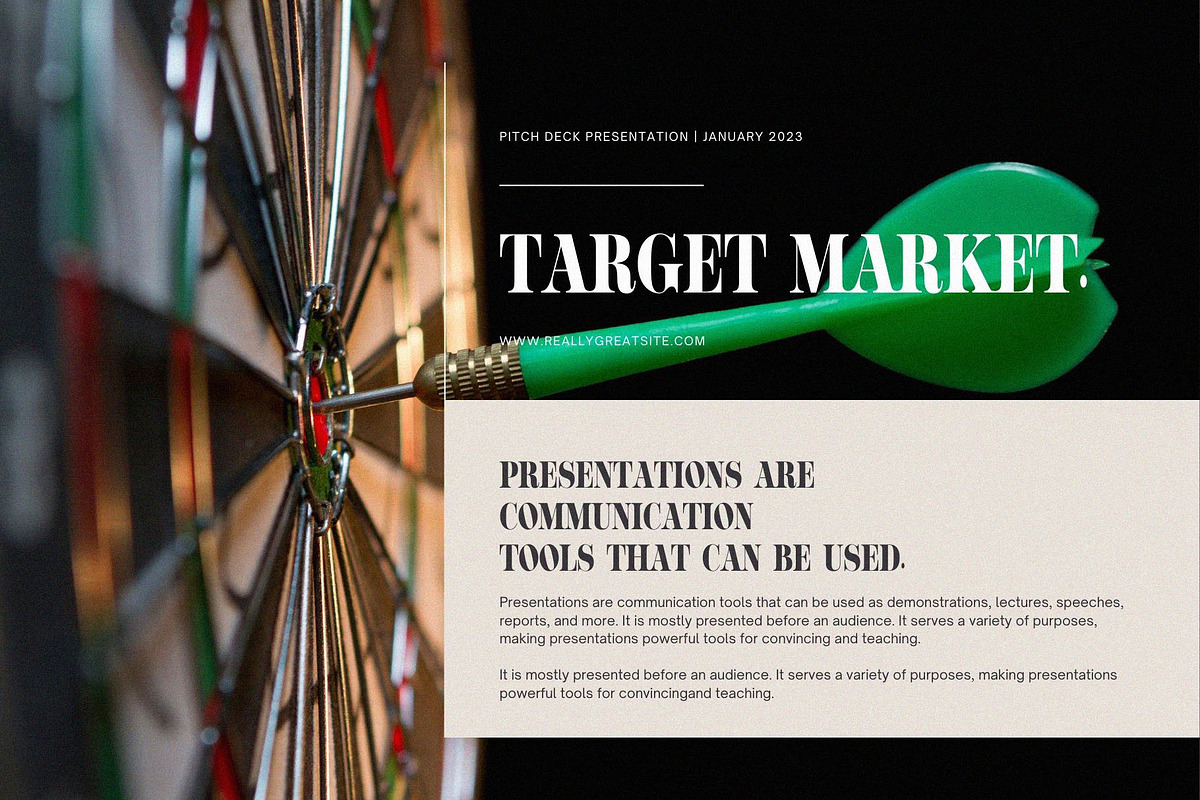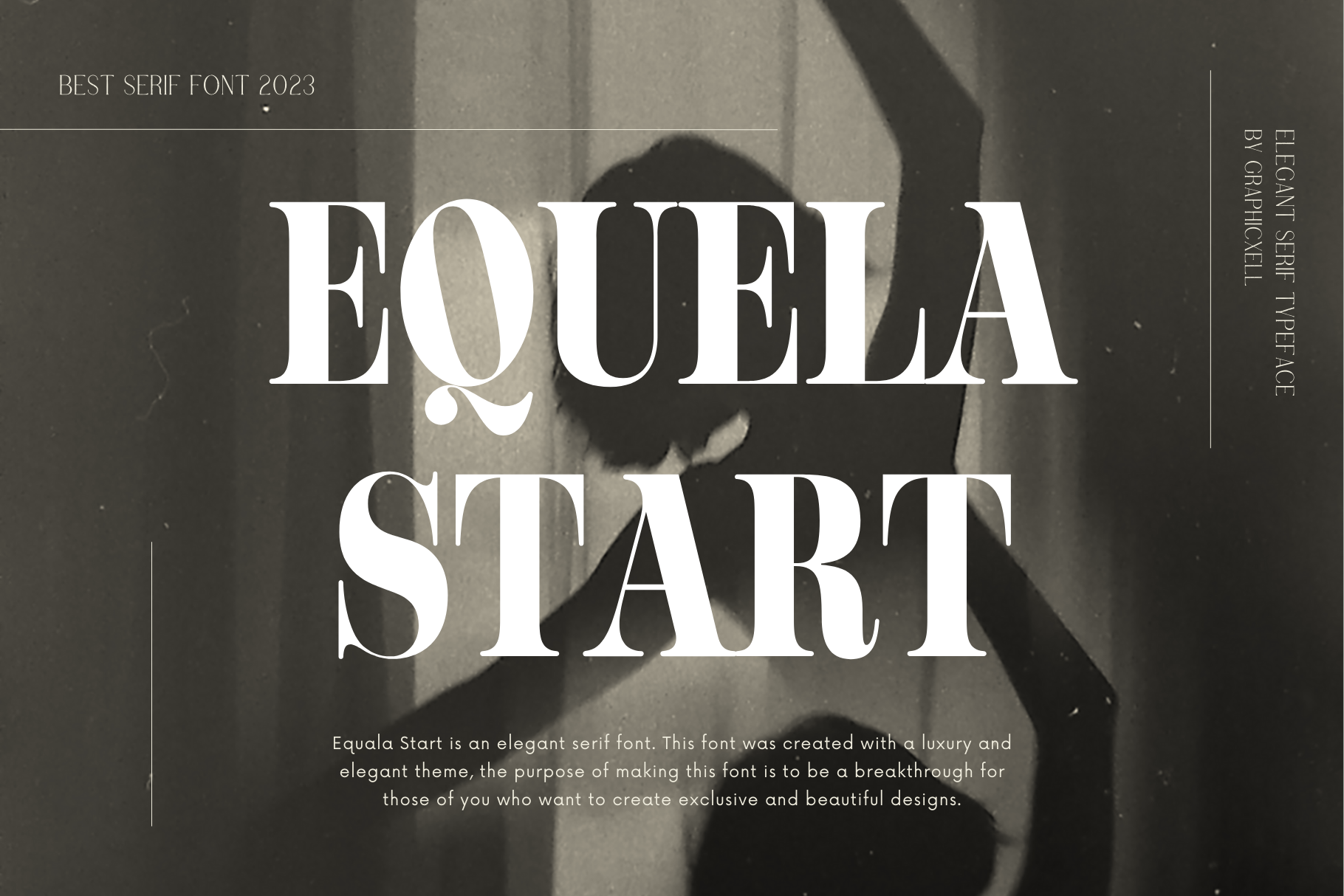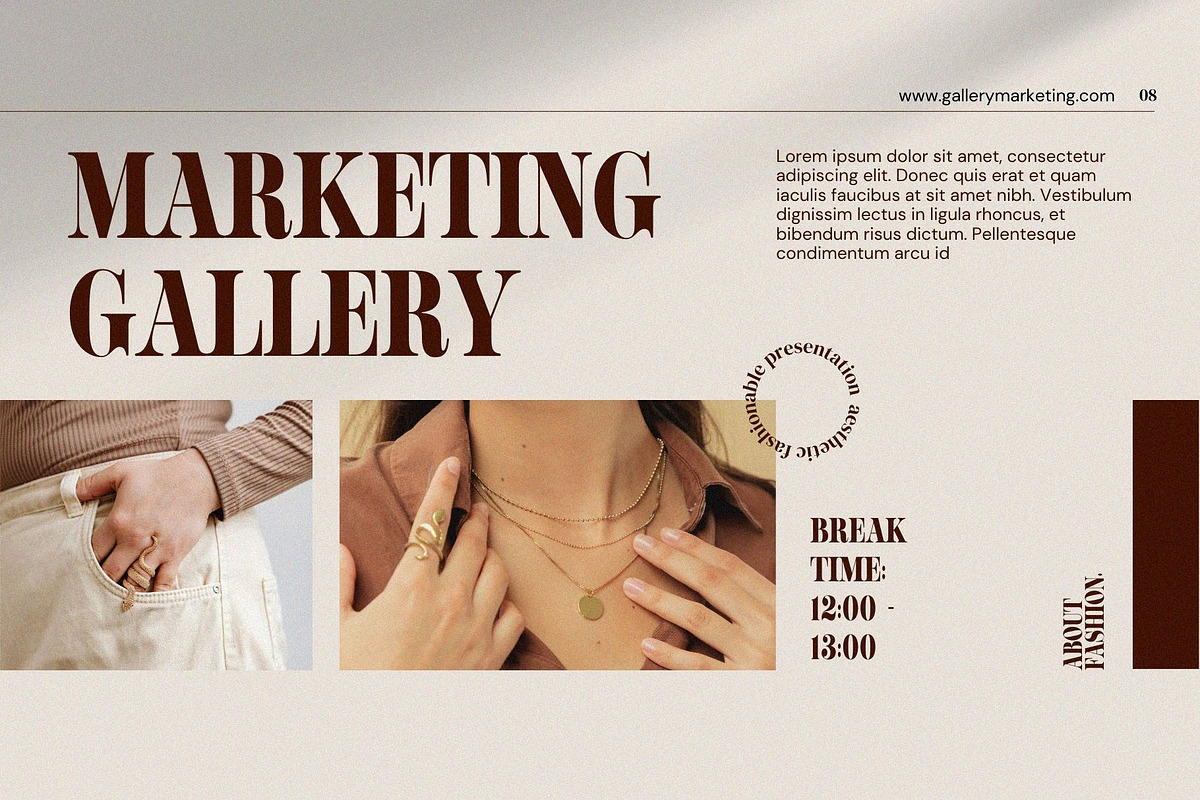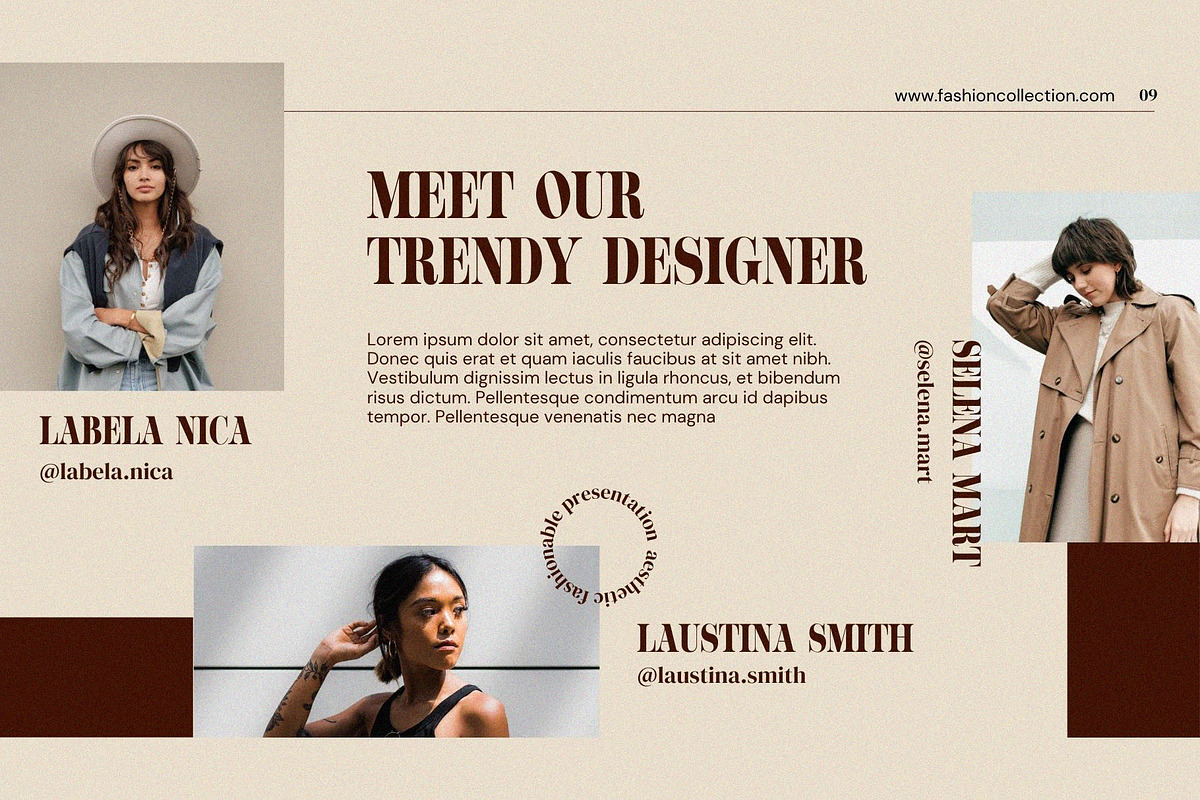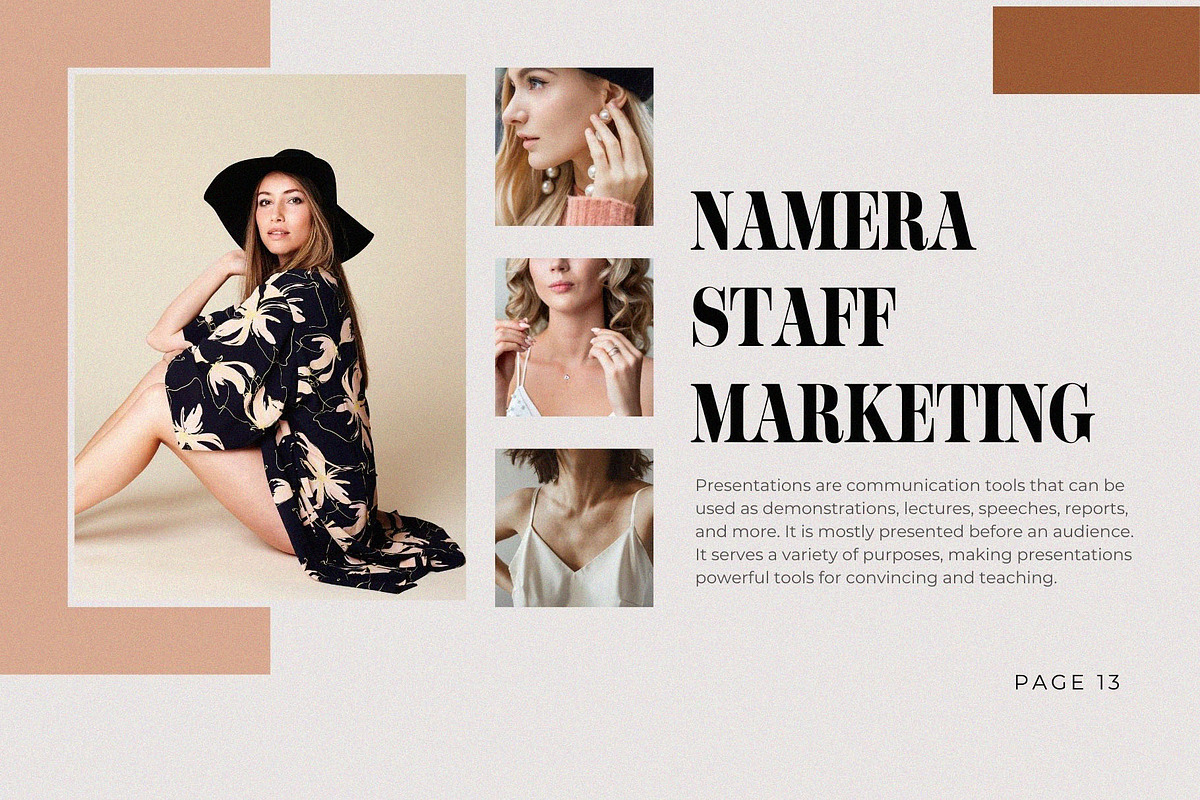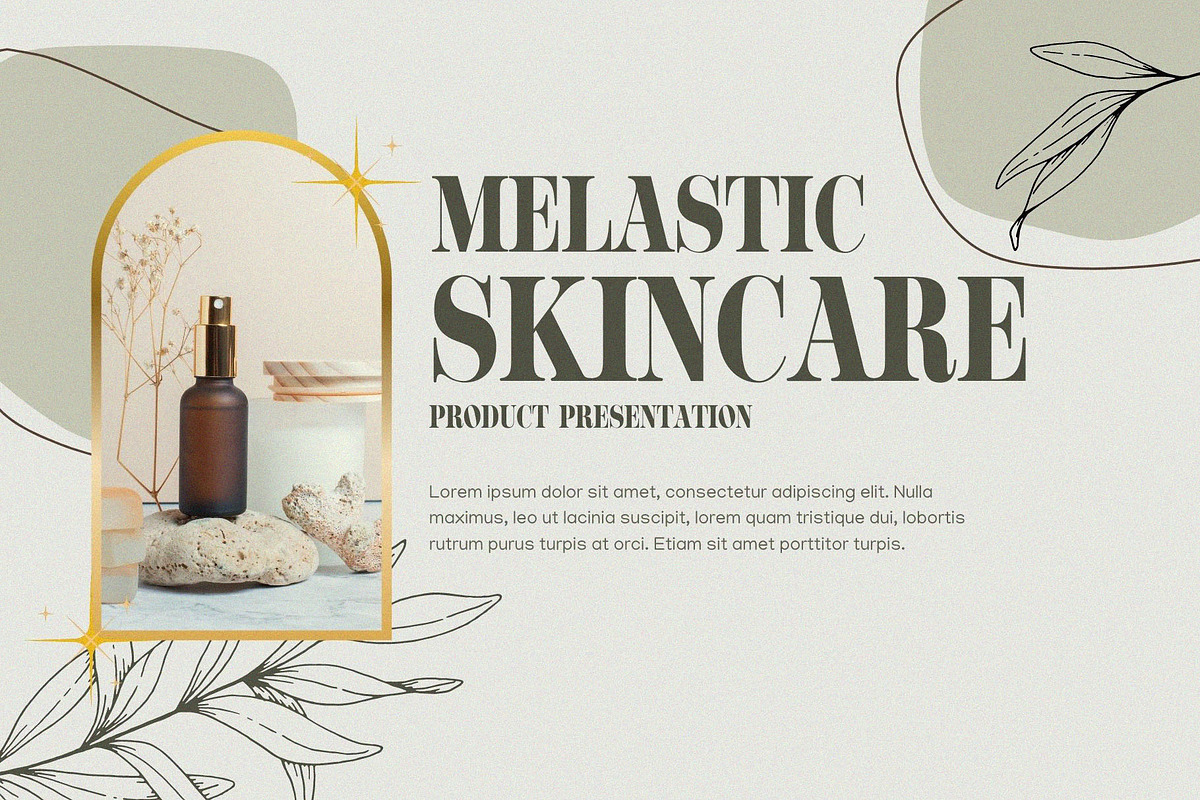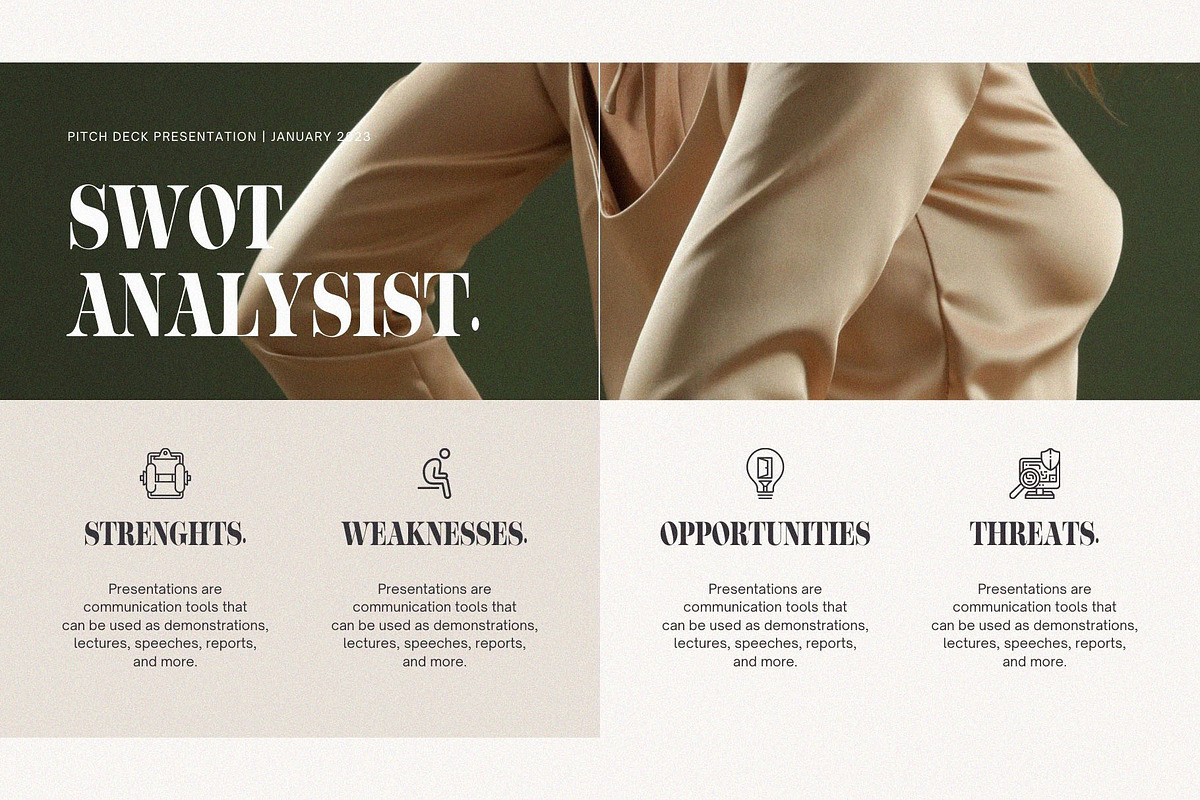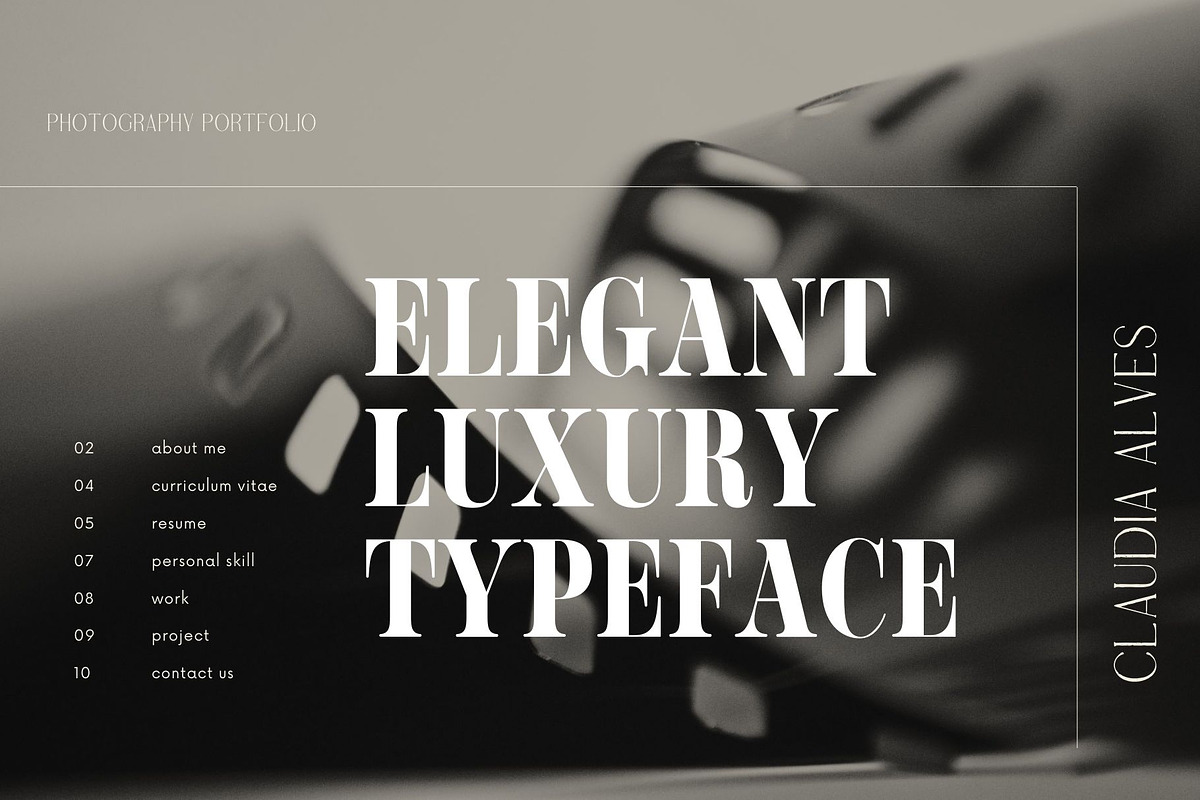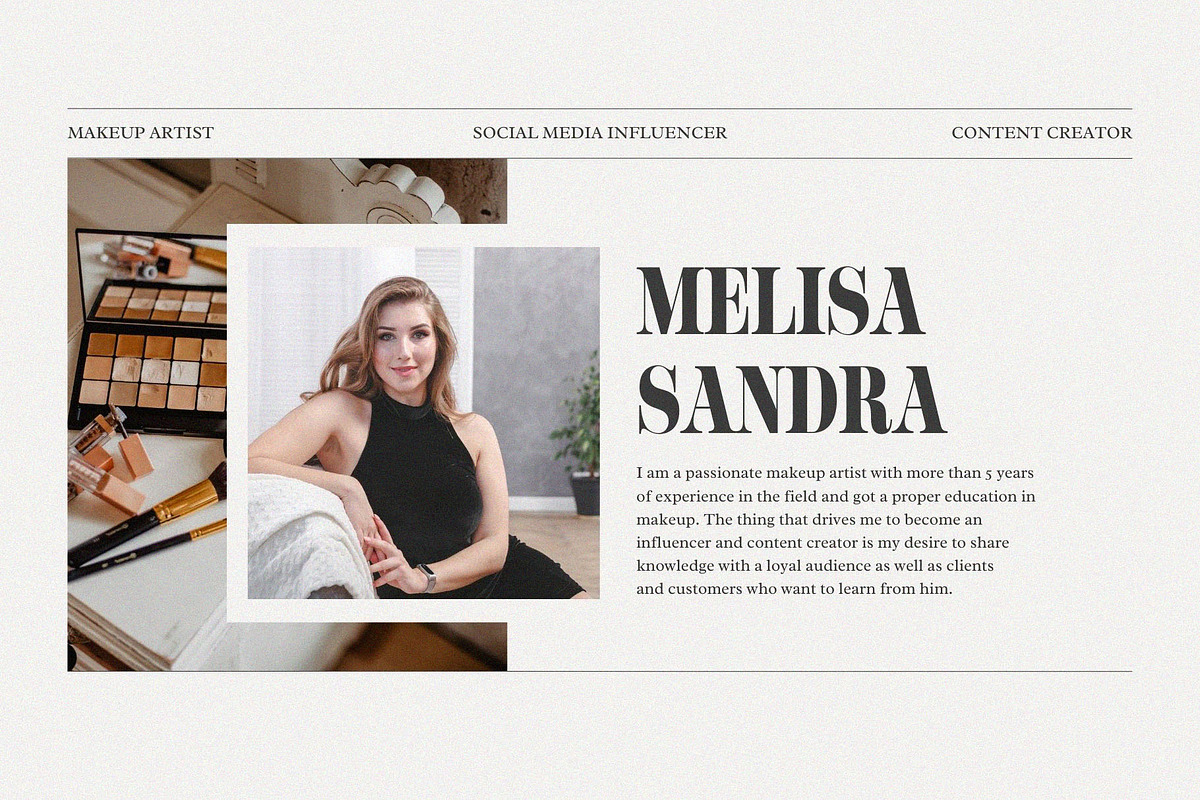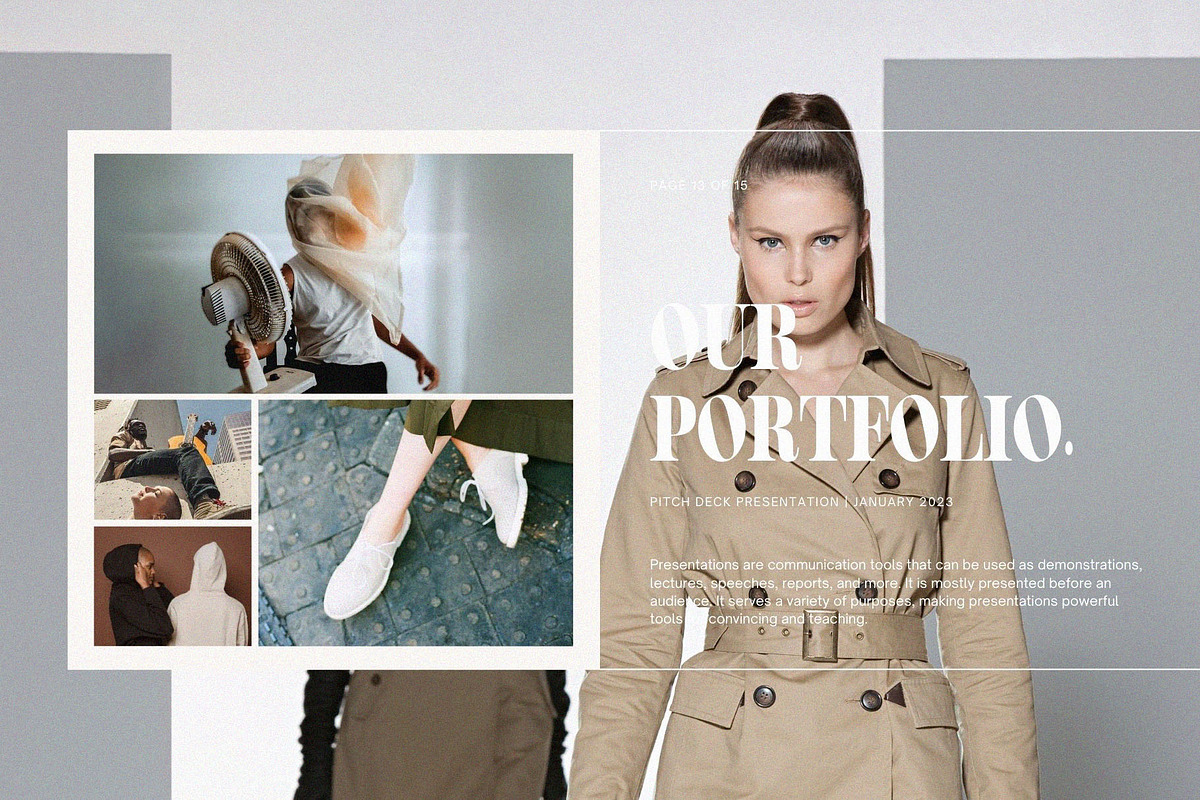
Equela Start Elegant Serif Font
Equela Start Elegant Serif Font inspired by the famous minimalist logo perfect for the purposes of designing templates, brochures, videos, advertising branding, logos, invitation, layout design, elegant crafting, beauty design and more.